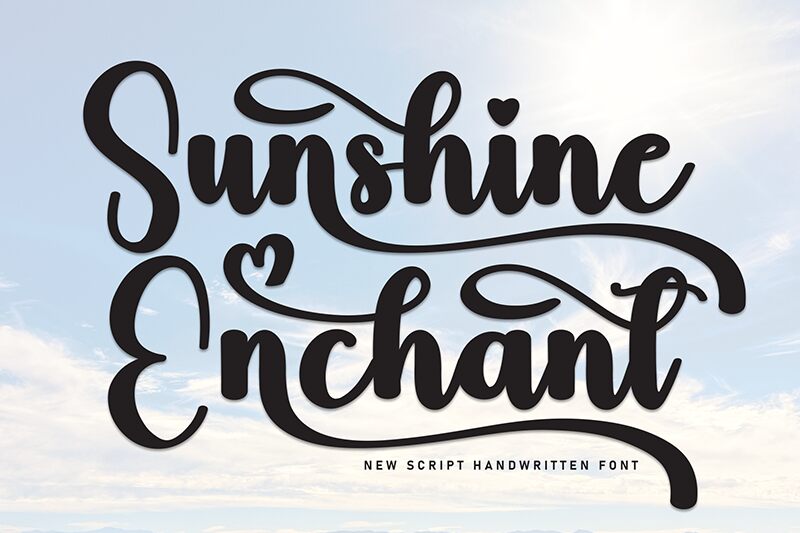
Sunshine Enchant
Sunshine Enchant font by Scratchones mixes fluid movements with a playful and elegant style only achieved in handwritten fonts. Its signature style falls in line with expressive typefaces where characters follow ornamental designs. And between each swoosh and swirl, the letters carry a soft romantic tone which should put this font on designers’ radar.
Enchanted words and bewitching sentences are possible using Sunshine Enchant. This free handwritten font can decorate greeting cards for anniversaries, birthdays, and Valentine’s Day or bring its whimsy to shop signs, window displays, packaging designs, etc.